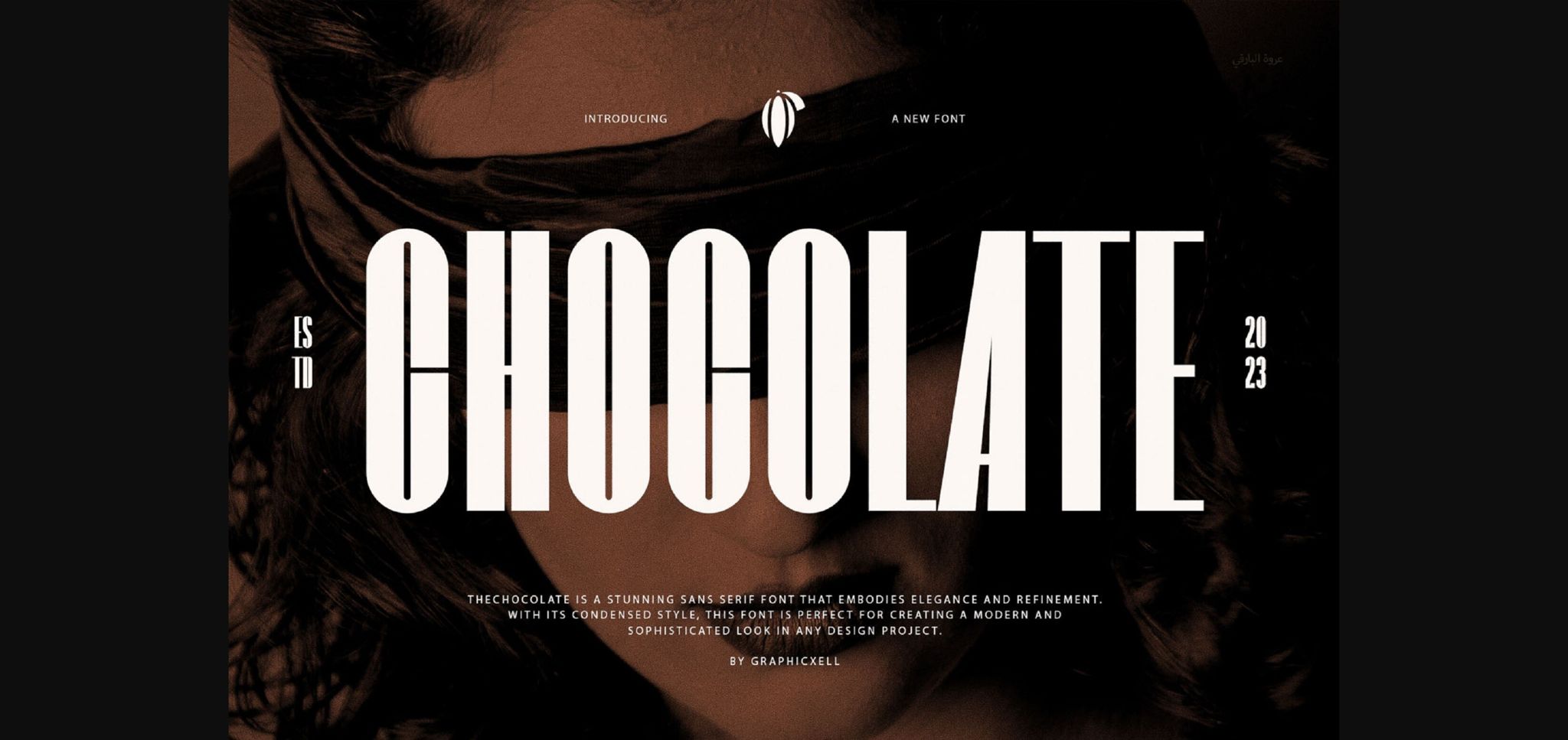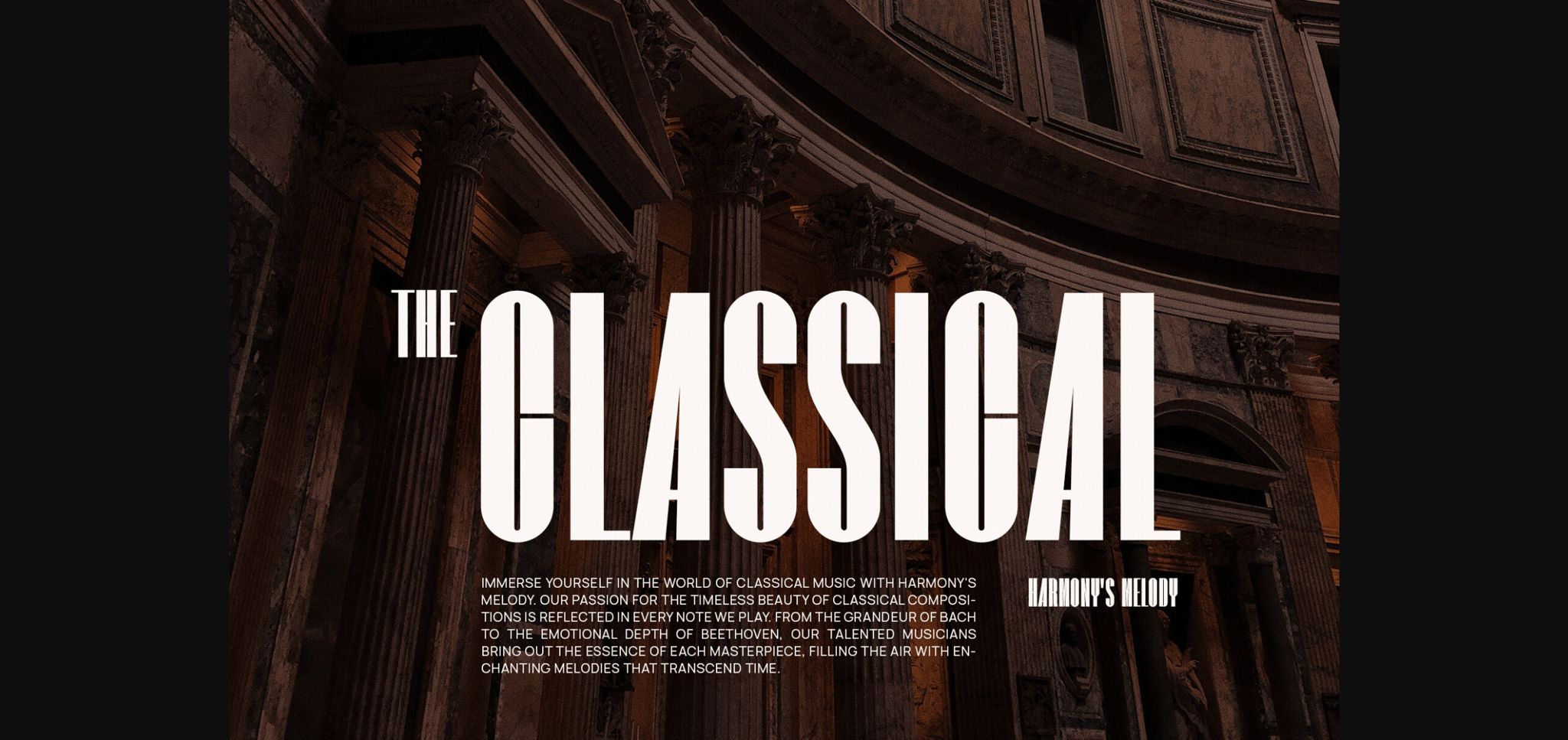
About Chocolate Font
This type of font is very suitable for your various needs such as branding projects, logos, wedding designs, social media posts, advertisements, product packaging, product designs, labels, photography, watermarks, invitations, stationery, and any project, created with high level of readability.